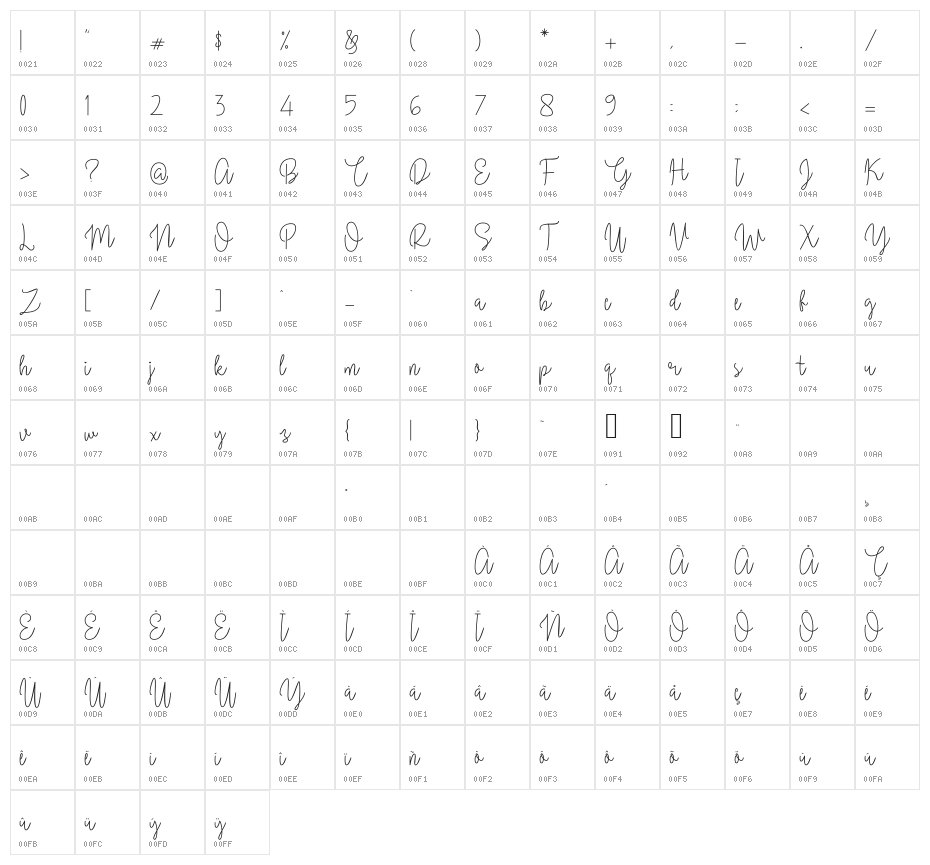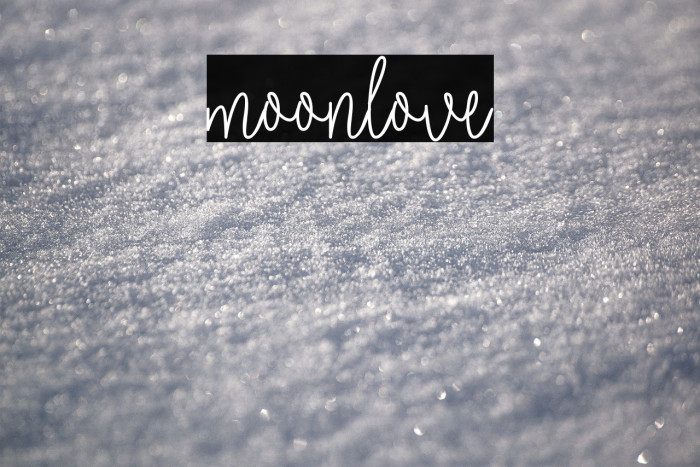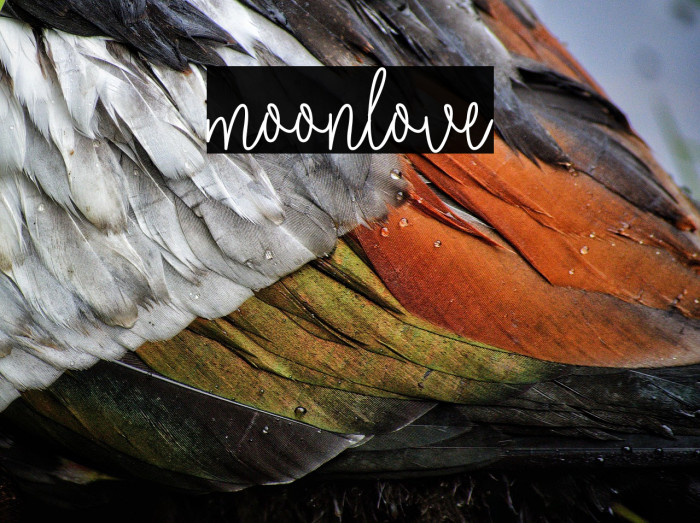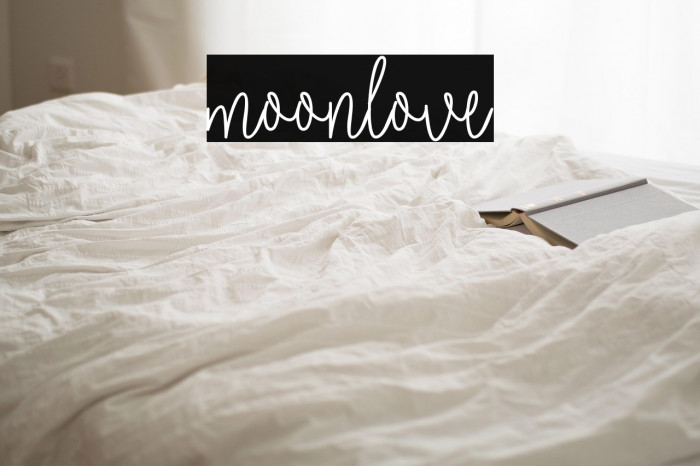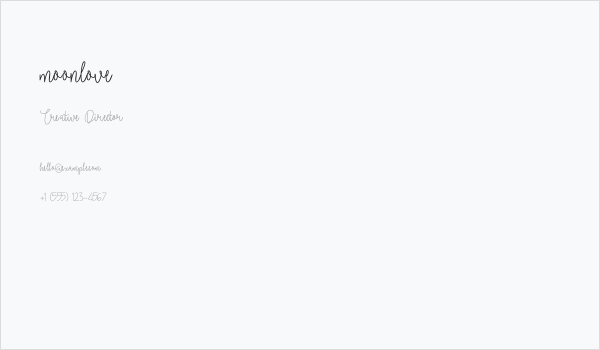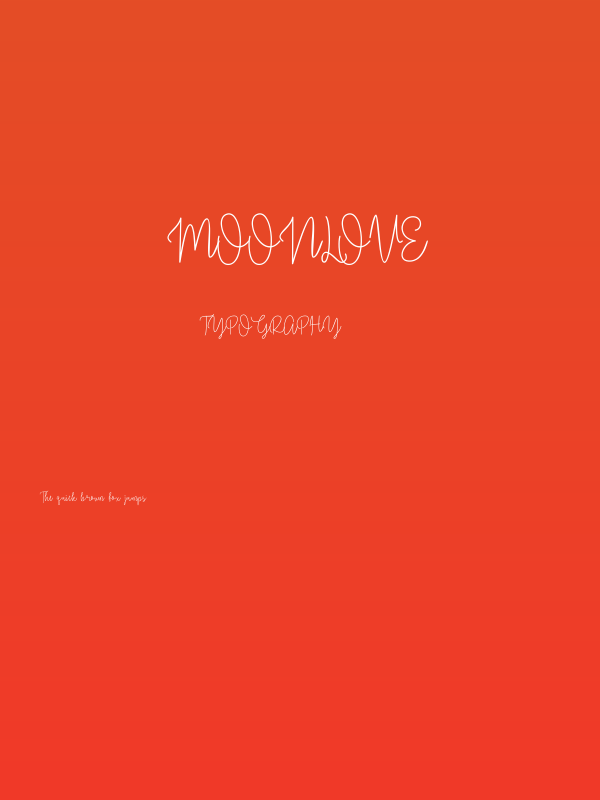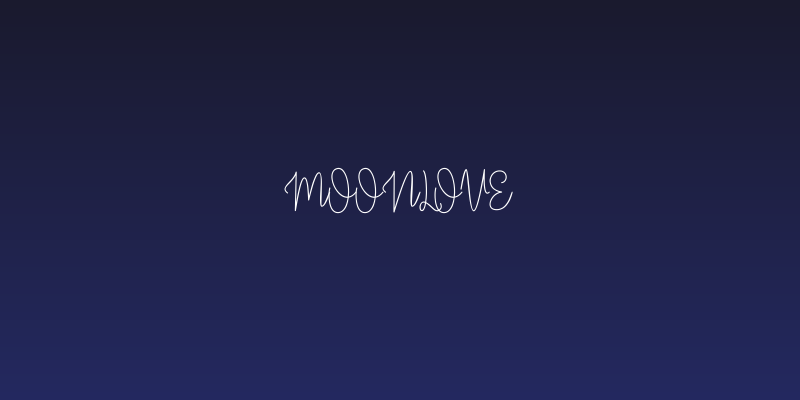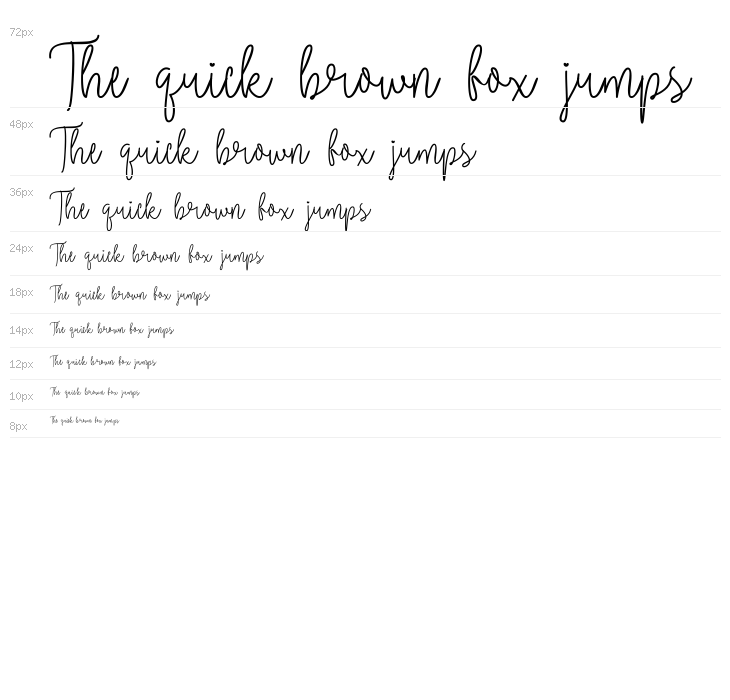
moonlove Font
moonlove Description
This font features a delicate and flowing script style, characterized by its elegant and fluid letterforms. The uppercase letters exhibit a graceful, cursive design with smooth, continuous strokes that connect seamlessly, creating a sense of harmony and movement. The lowercase letters maintain this fluidity, with gentle curves and loops that add a touch of sophistication. The numerals are consistent with the script style, offering a cohesive look across all characters. Special characters are thoughtfully designed to match the overall aesthetic, making this font versatile for various applications. The thin strokes and consistent line weight contribute to its refined appearance, suitable for projects that require a touch of elegance and charm.
| Overall Style | Elegant, Sophisticated |
| Use Case | Headlines, Invitations, Branding |
| Proposed Projects | Ideal for wedding invitations, greeting cards, branding, and elegant logo designs. |